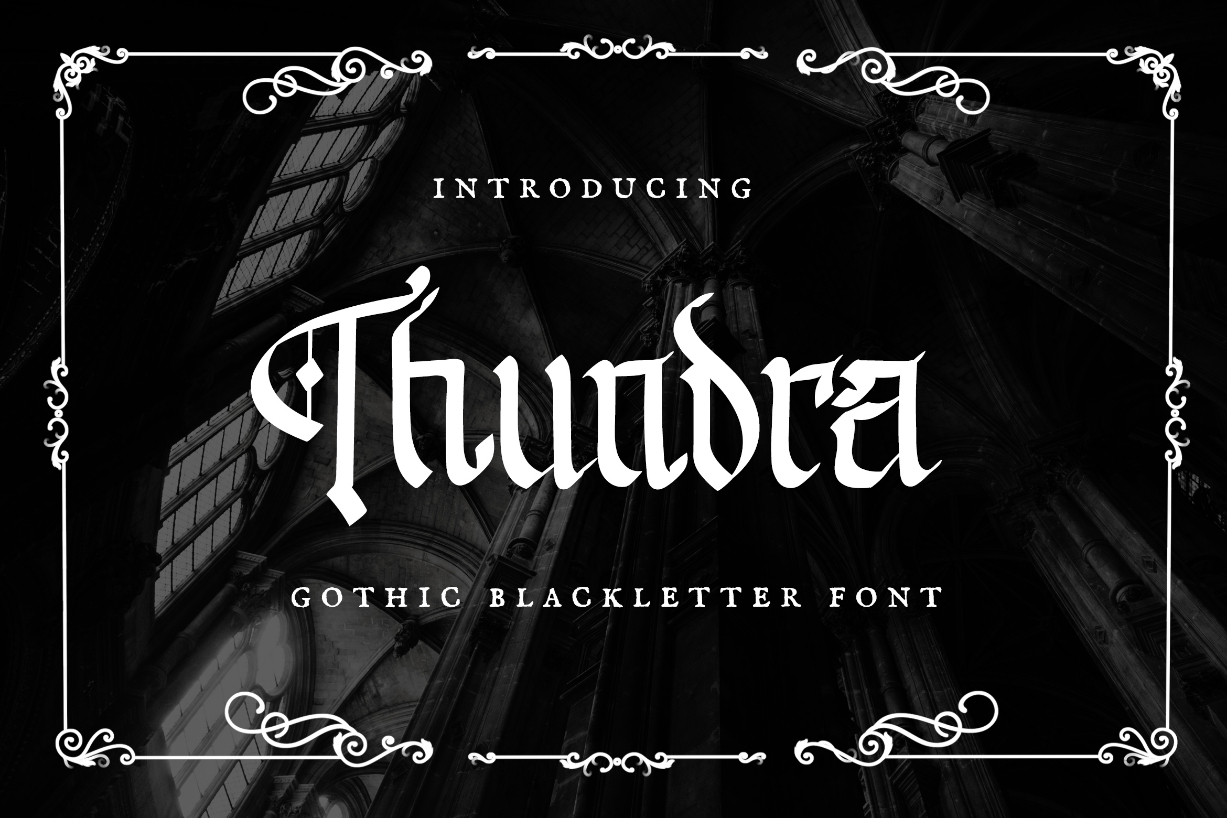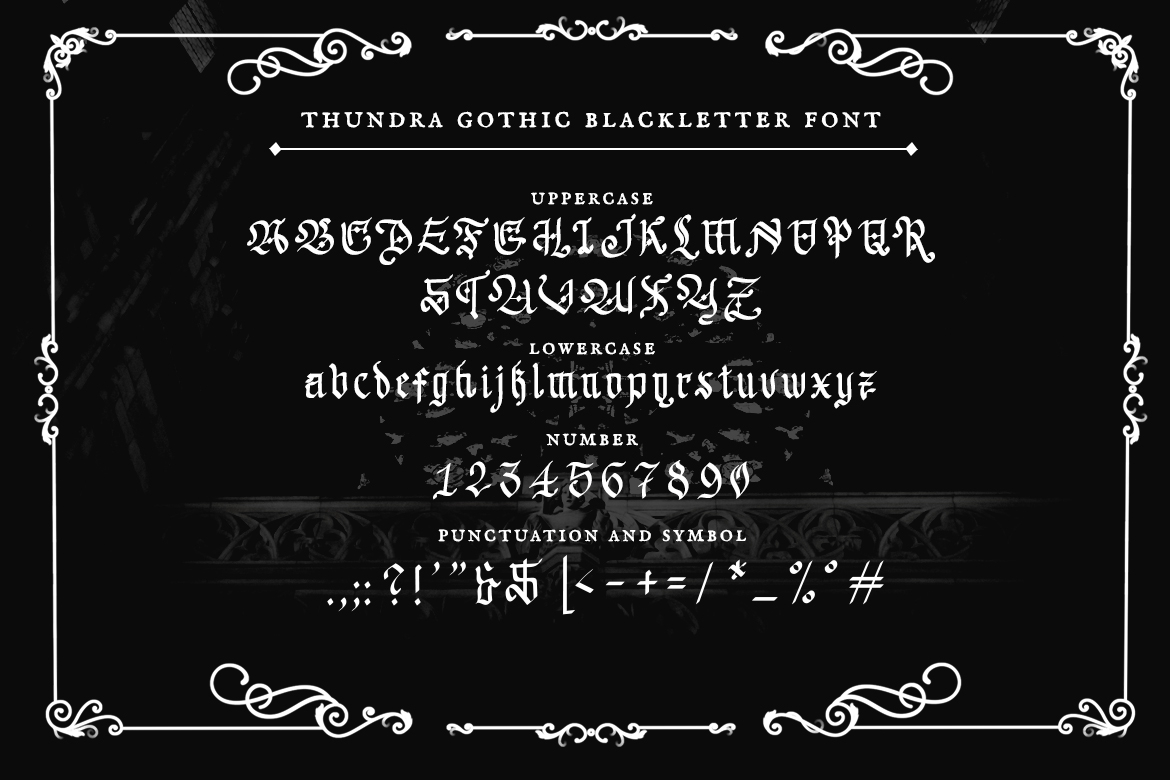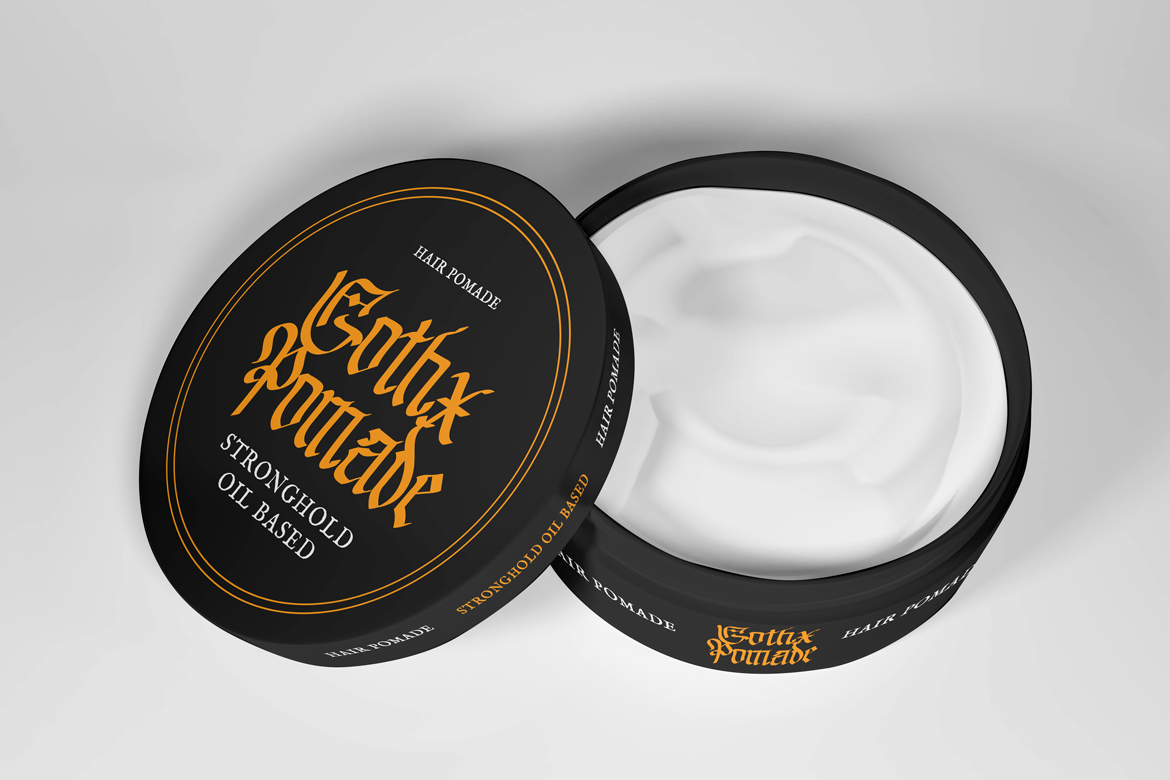
About Thundra Font
Thundra is a simple and elegant blackletter font. Add this gothic styled font to each of your creations, and notice how it will make them stand out!